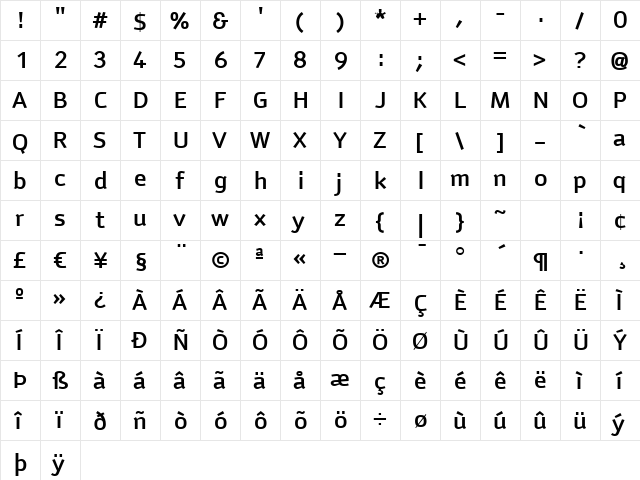
AnomolyMedium Regular
Design Context for AnomolyMedium Typeface
AnomolyMedium offers clean, dependable letterforms without strong stylistic allegiance, making it a practical choice for designers who need flexibility.
Pro Tip: Pair AnomolyMedium with a font of contrasting weight or personality to build a more expressive typographic hierarchy.